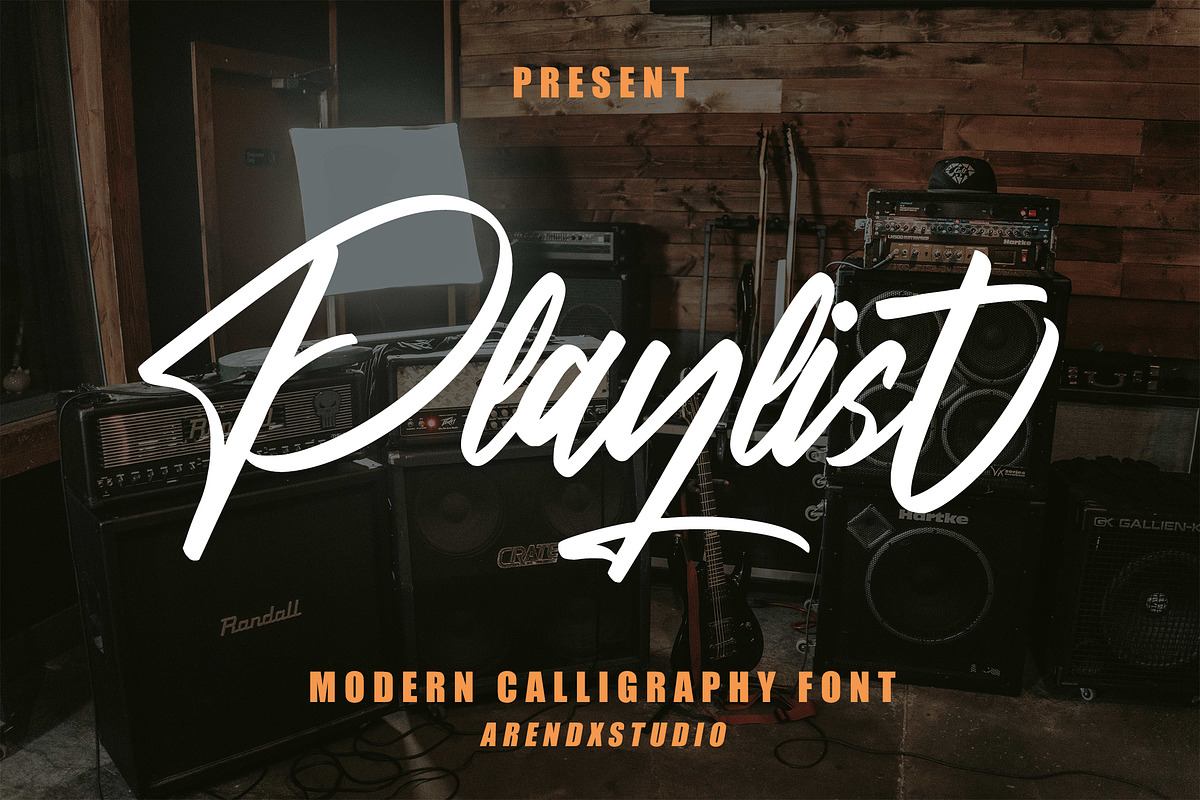
Playlist - Modern Calligraphy Font Free Download
Playlist - Modern Calligraphy Font Free Download is a stylish and flowing script typeface with a contemporary calligraphic feel. Featuring smooth, sweeping curves and elegant letterforms, this font is perfect for wedding invitations, logos, branding, social media posts, and any design project that calls for a sophisticated yet personal touch.
Playlist - Modern Calligraphy Font Free Download blends modern script with classic calligraphy, creating a versatile typeface that exudes elegance and charm. Its fluidity and high contrast make it ideal for creating high-end designs that stand out while maintaining a refined aesthetic.